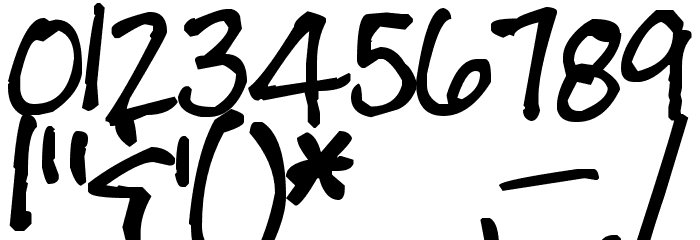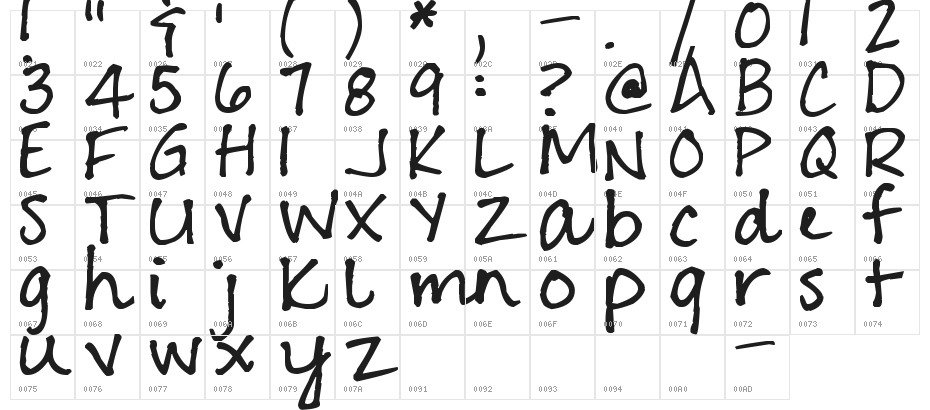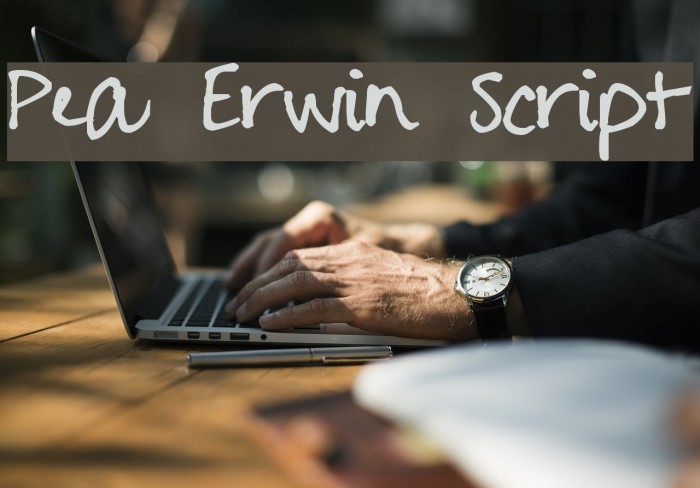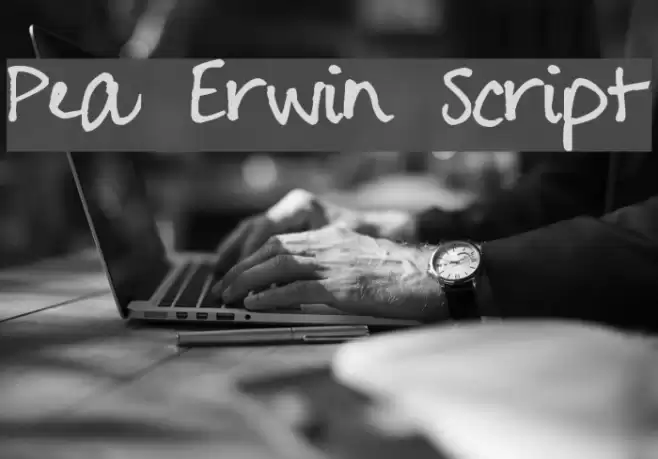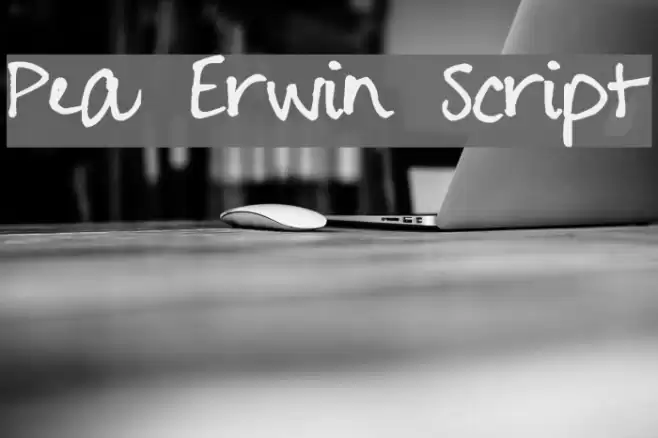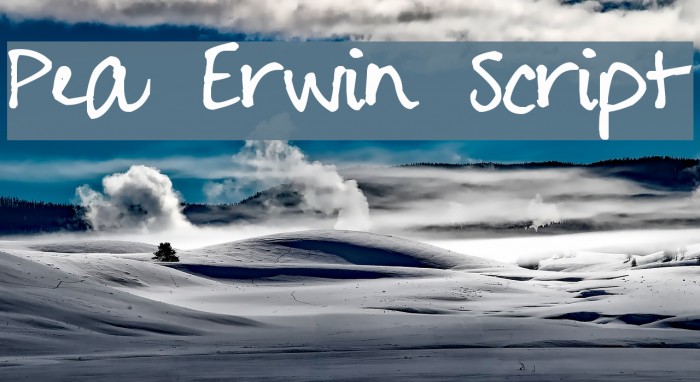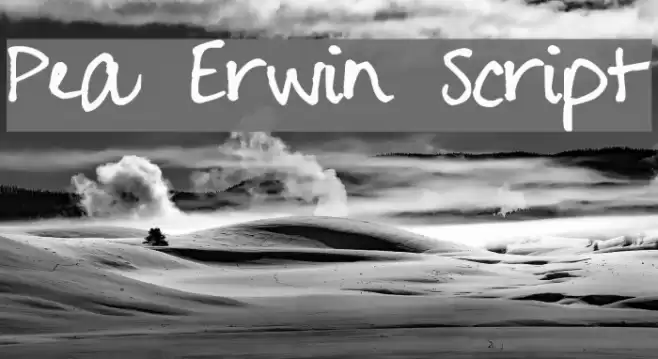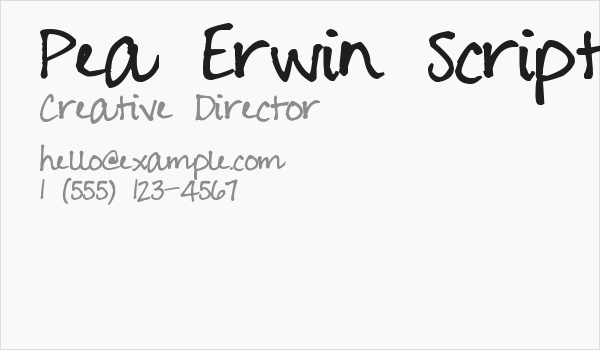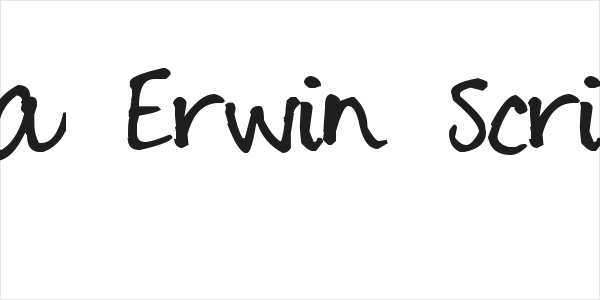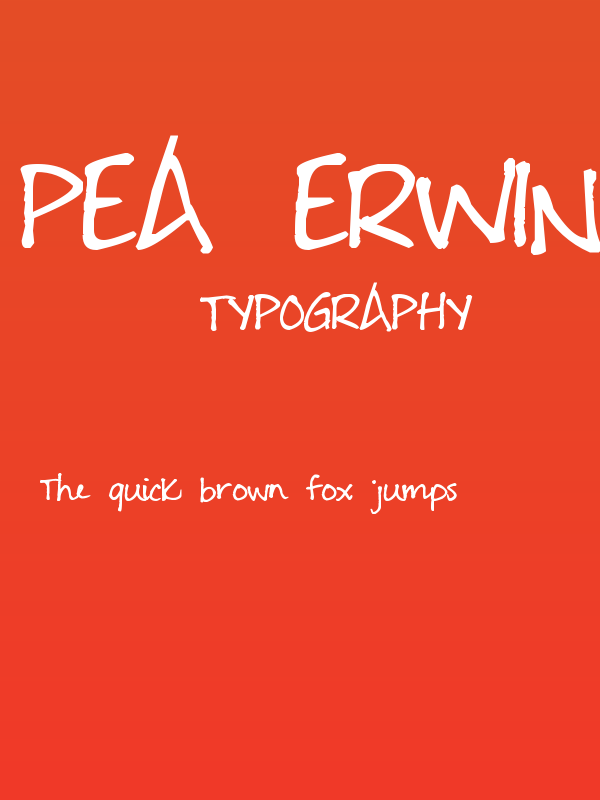
Pea Erwin Script Font
Pea Erwin Script Description
This font exudes a casual and playful handwritten style, characterized by its uneven strokes and slightly irregular baseline. The letters have a natural flow, reminiscent of quick, informal handwriting. The uppercase and lowercase letters maintain a consistent style, with rounded edges and a slight slant, adding to its approachable and friendly appearance. The numbers and special characters follow the same handwritten aesthetic, ensuring a cohesive look across all glyphs. This font is ideal for projects that require a personal touch, conveying warmth and authenticity.
| Proposed Projects | Ideal for greeting cards, personal notes, informal invitations, and creative projects that benefit from a personal touch. |